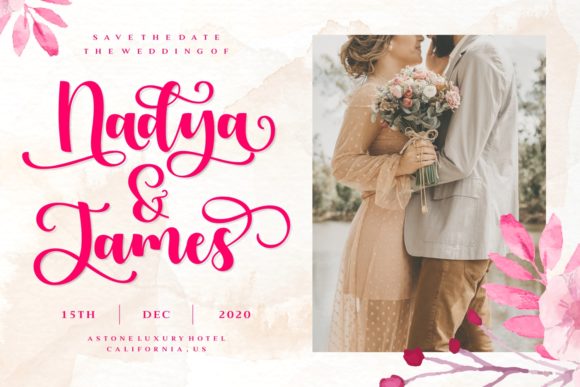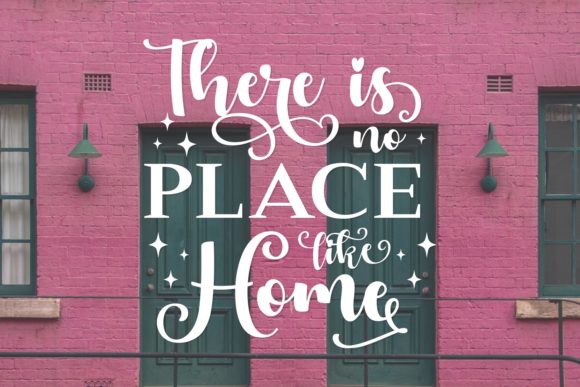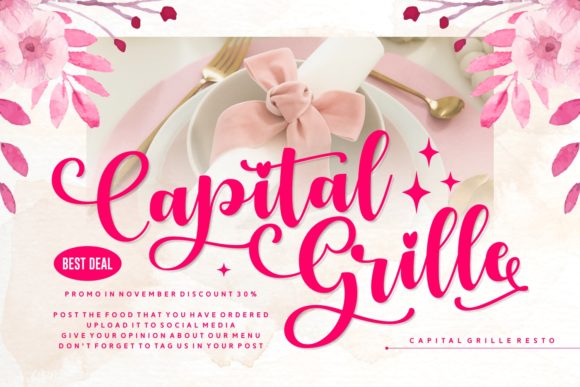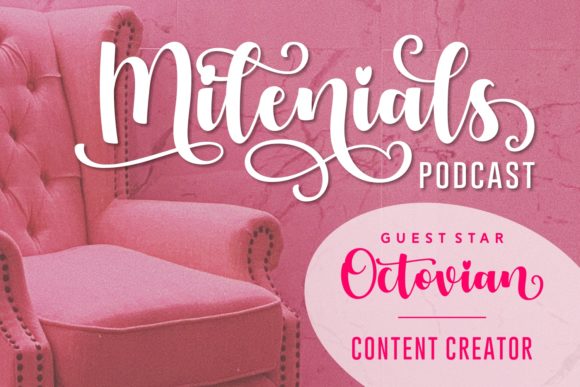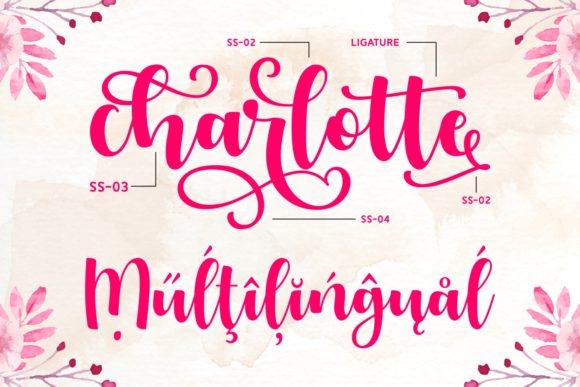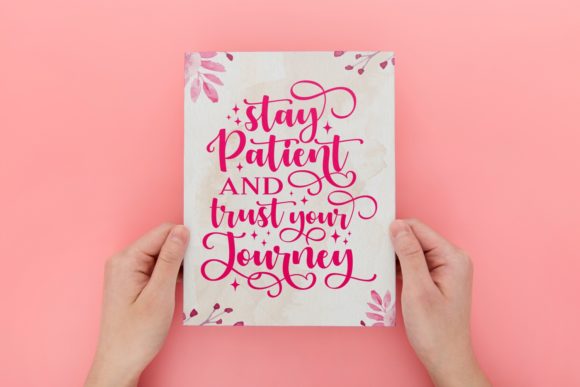
Introduction to Hey Valenta Font
Hey Valenta is an elegant script font with a contemporary atmosphere and impeccable form, inspired by timeless classic calligraphy.
Not too thin and not too thick, balanced and varied, Hey Valenta was designed to enhance the beauty of your projects .